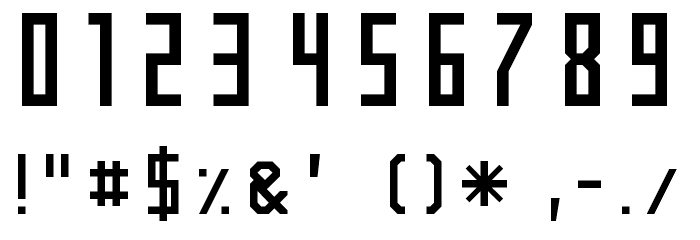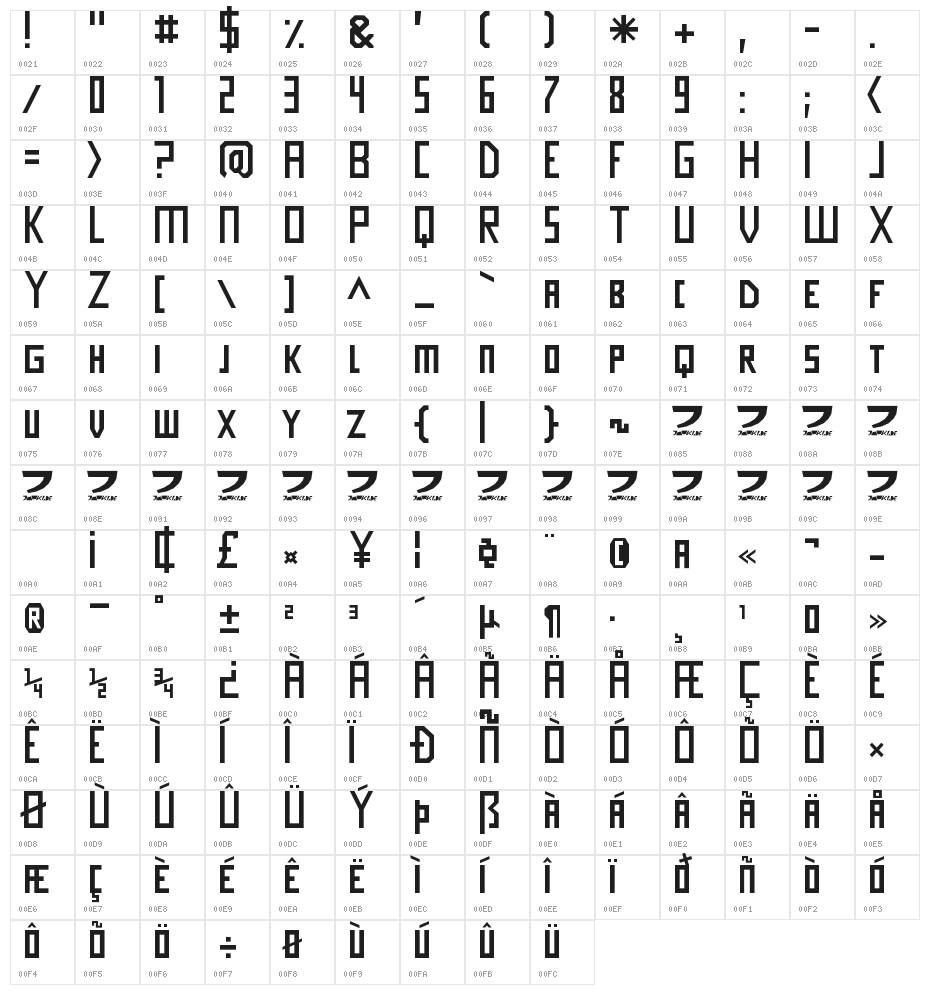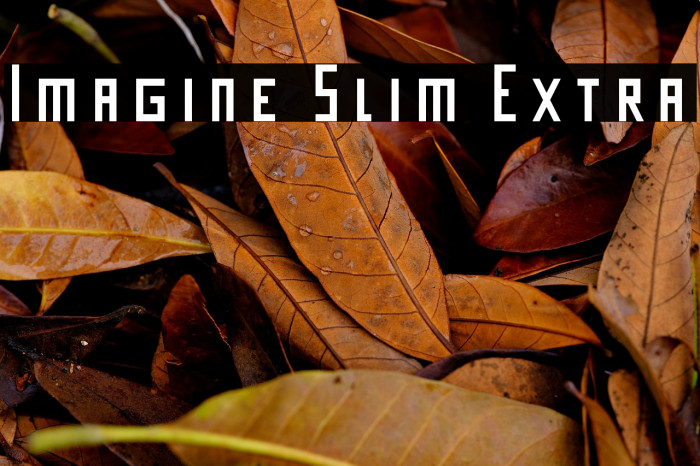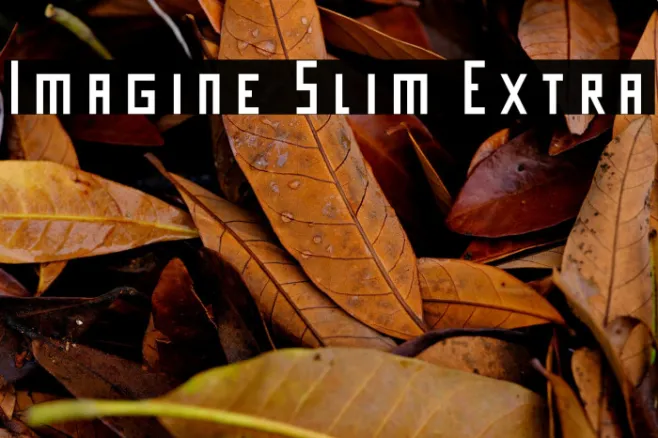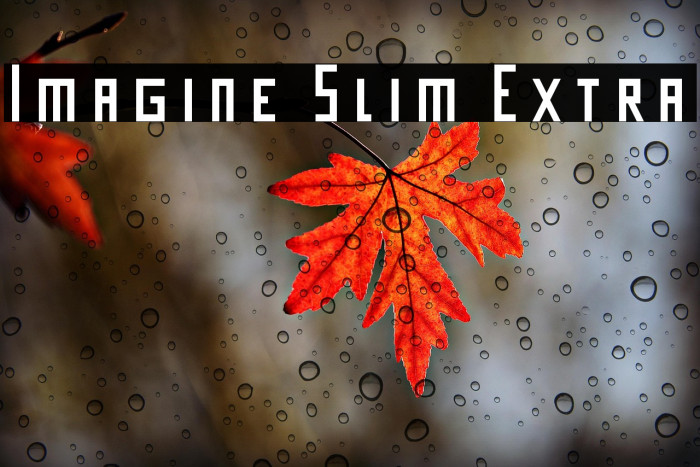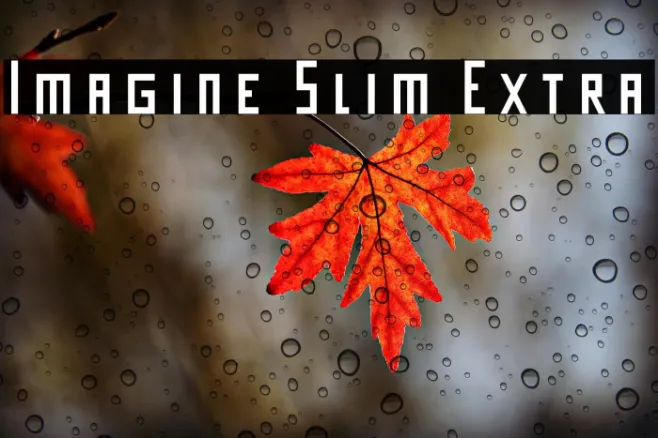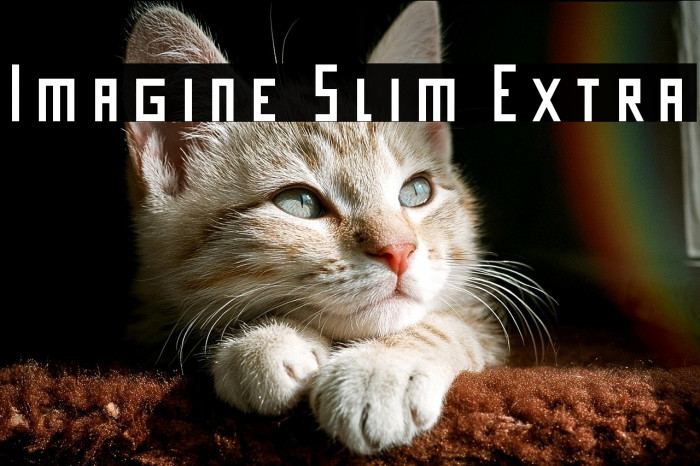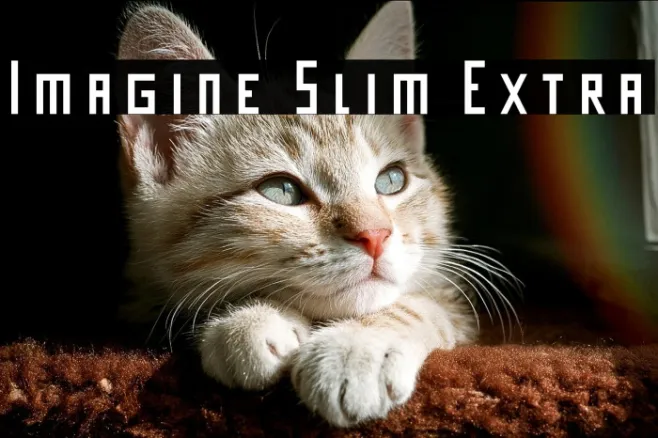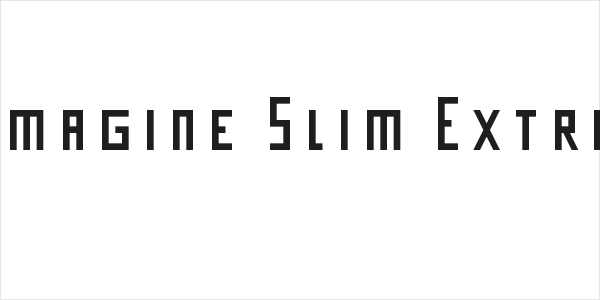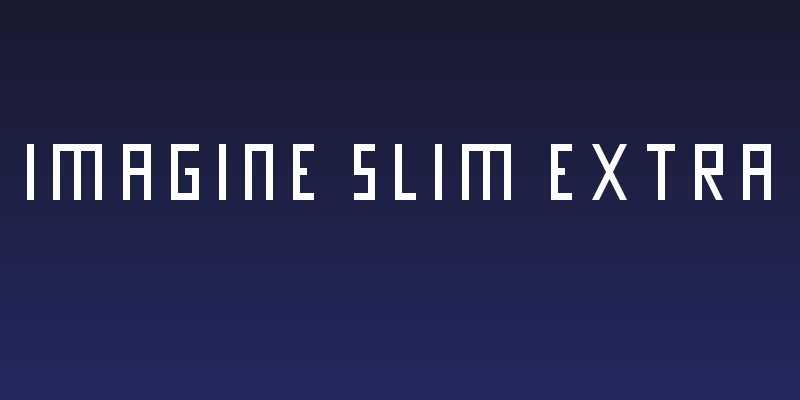
Imagine Slim Extra Font
Imagine Slim Extra Description
This font features a geometric and modern design with a strong emphasis on straight lines and sharp angles. The characters are uniformly structured, creating a cohesive and futuristic appearance. The uppercase and lowercase letters maintain a consistent height, contributing to a clean and organized look. The numerals are distinct and easily readable, while the special characters complement the overall style. The font's design is minimalistic yet impactful, making it suitable for various digital and print applications.